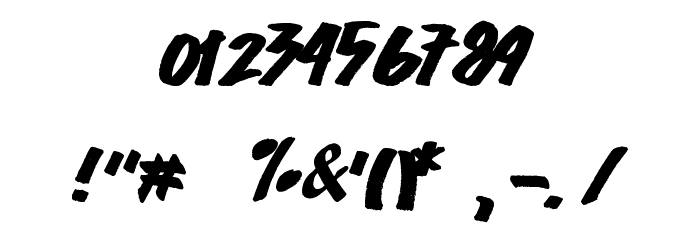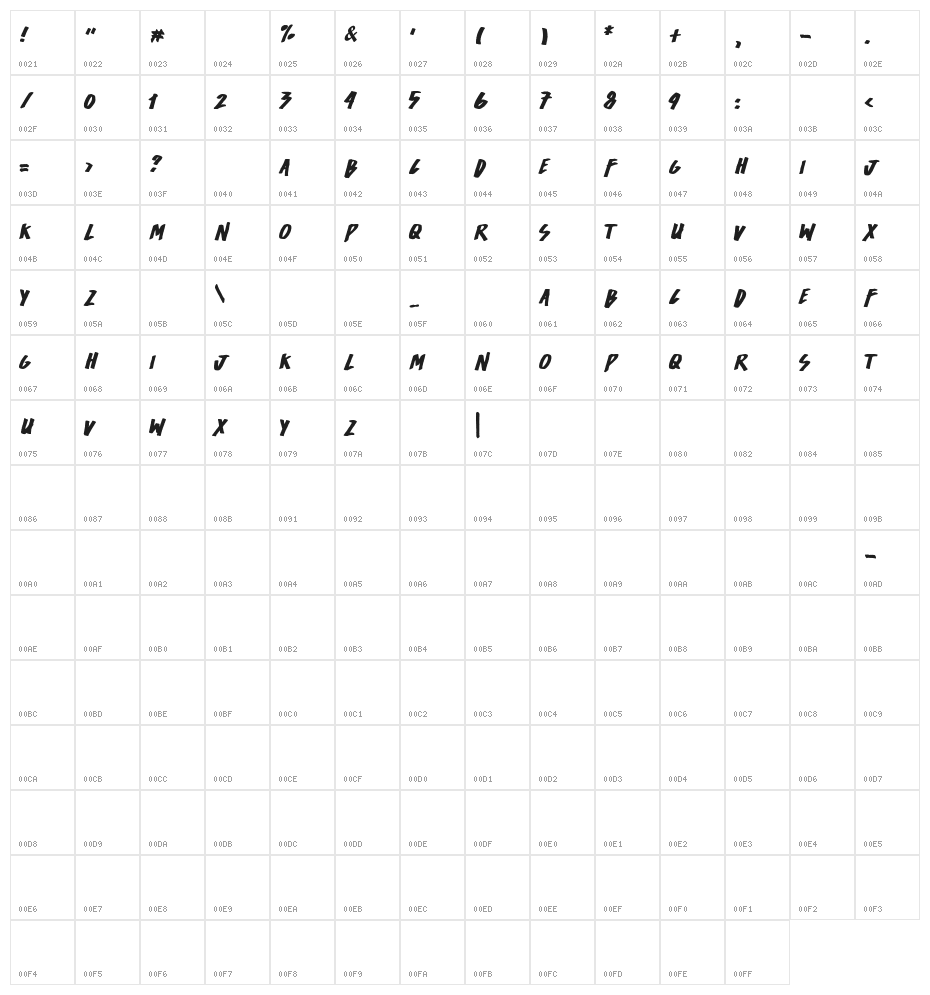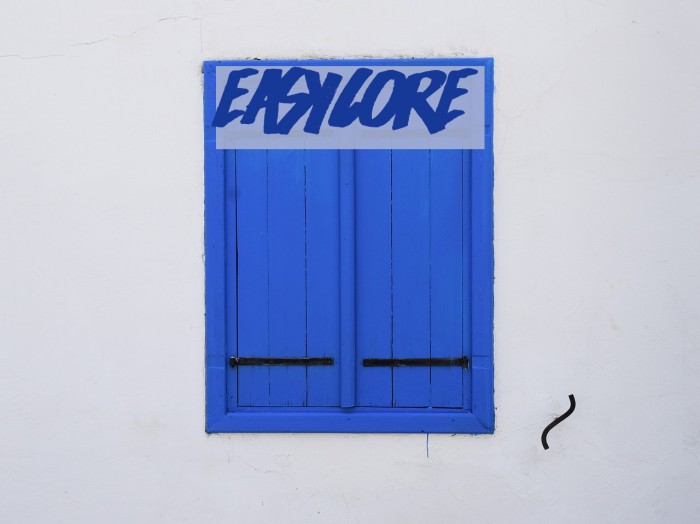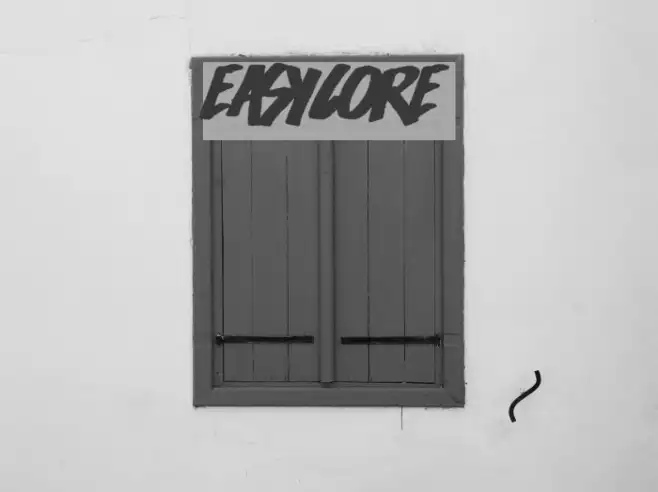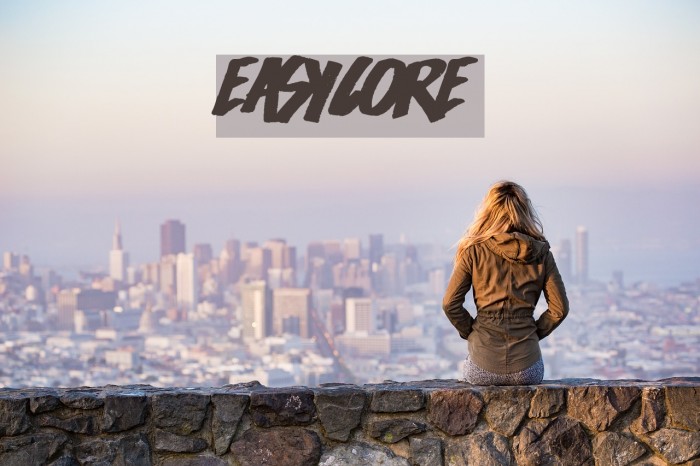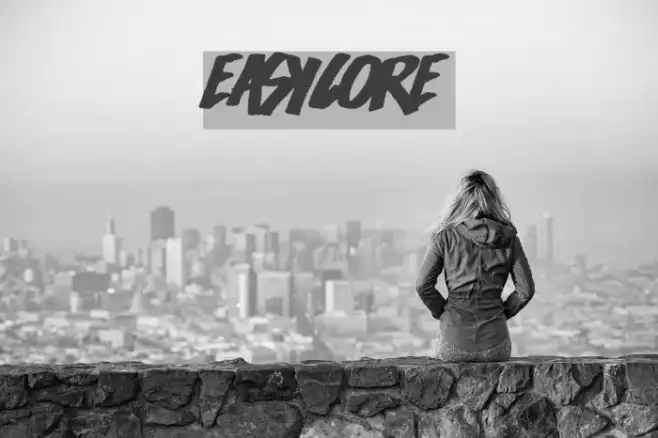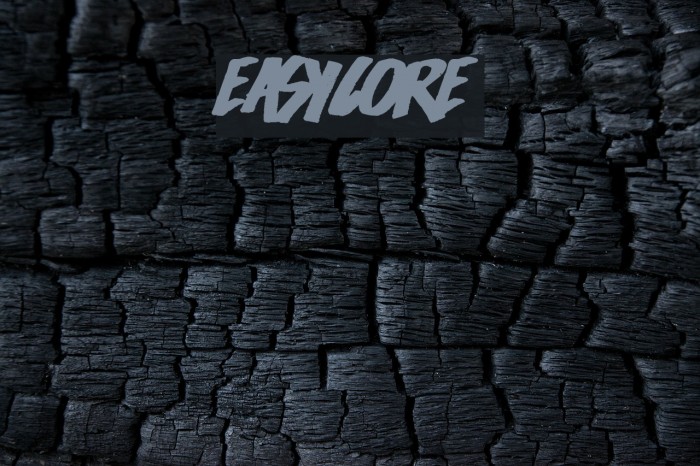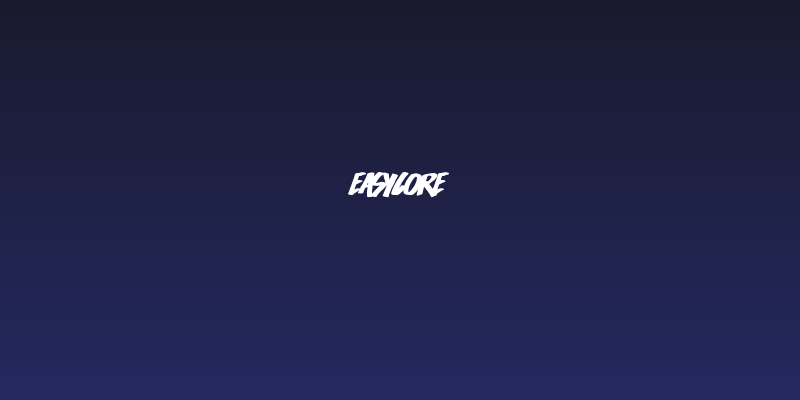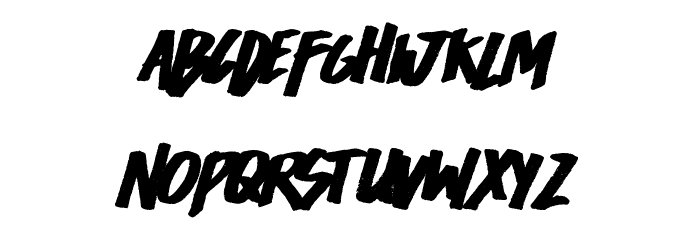
Easycore Font
Easycore Description
This font exudes a bold and energetic style, characterized by its thick, brush-like strokes that give it a dynamic and expressive appearance. The letters are slightly slanted, adding to the sense of movement and fluidity. Each character is crafted with a sense of urgency and flair, making it ideal for projects that require a strong visual impact. The uppercase and lowercase letters maintain a consistent style, with the uppercase being particularly prominent. Numbers and special characters are equally bold, ensuring uniformity across all text elements.
| Proposed Projects | Ideal for posters, album covers, branding, and any project needing a bold, energetic typeface. |